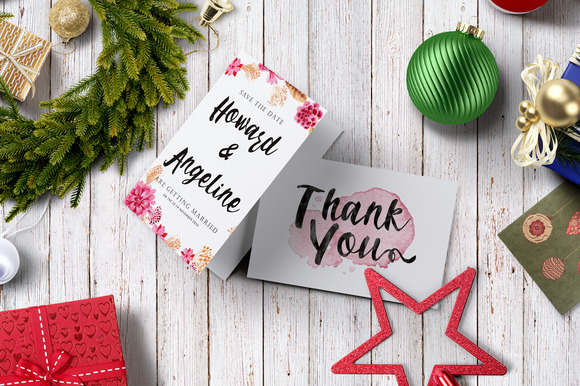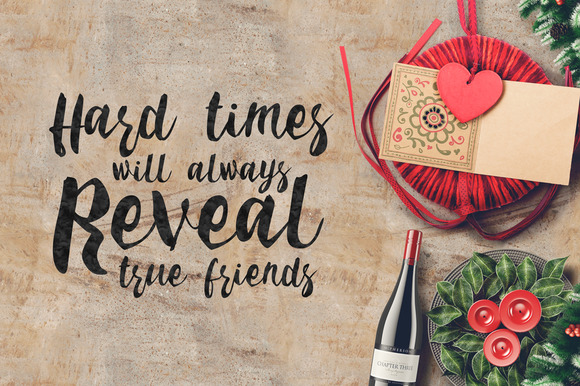
Cemporeng Script Font: A Delightfully Playful Typeface
In the world of typography, script fonts have always been a popular choice for designers and crafters looking to add a touch of elegance and personality to their projects. One such font that has been making waves in the design community is the Cemporeng Script Font. This beautiful typeface is known for its delightfully playful end-swashes and alternative characters, making it a versatile choice for a wide range of design applications.
What is Cemporeng Script Font?
Cemporeng Script Font is a modern script typeface that features a unique and playful design. The font comes with a selection of delightfully playful end-swashes, which can be used to add a touch of whimsy and flair to any design project. The font is designed to be highly versatile, making it suitable for use in a variety of contexts, from wedding invitations and greeting cards to branding and advertising materials.
Key Features of Cemporeng Script Font
So, what sets Cemporeng Script Font apart from other script fonts on the market? Here are some of its key features:
- Delightfully Playful End-Swashes: The font comes with a selection of end-swashes that can be used to add a touch of playfulness and whimsy to any design project.
- Alternative Characters: The font features alternative characters that can be used to create a unique and personalized look.
- OpenType Features: The font supports OpenType features such as Stylistic Sets, Contextual Alternates, and Ligature, which can be accessed using OpenType savvy programs like Adobe Illustrator and Adobe InDesign.
Using Cemporeng Script Font with OpenType Features
One of the standout features of Cemporeng Script Font is its support for OpenType features. These features allow designers to access a range of alternative characters and typographic effects, making it possible to create complex and visually appealing designs. To access these features, designers will need to use an OpenType savvy program such as Adobe Illustrator or Adobe InDesign.
Here are some of the OpenType features that are supported by Cemporeng Script Font:
- Stylistic Sets: This feature allows designers to access a range of stylistic sets, each of which features a unique combination of alternative characters.
- Contextual Alternates: This feature allows designers to access alternative characters that can be used in specific contexts, such as at the beginning or end of a word.
- Ligature: This feature allows designers to access ligatures, which are special characters that combine two or more letters into a single glyph.
Design Applications for Cemporeng Script Font
Cemporeng Script Font is a highly versatile typeface that can be used in a wide range of design applications. Here are some examples of how the font can be used:
- Wedding Invitations: The font’s playful end-swashes and alternative characters make it a great choice for wedding invitations and other formal events.
- Greeting Cards: The font’s friendly and approachable design makes it a great choice for greeting cards and other social correspondence.
- Branding and Advertising: The font’s unique and playful design makes it a great choice for branding and advertising materials, such as logos, brochures, and flyers.
| Font Name | Cemporeng Script Font |
| Author | Fauzi |
Cemporeng Script Font is a beautiful and versatile typeface that is perfect for designers and crafters looking to add a touch of elegance and personality to their projects. With its delightfully playful end-swashes and alternative characters, this font is sure to make a statement in any design application. Whether you’re creating wedding invitations, greeting cards, or branding materials, Cemporeng Script Font is a great choice.